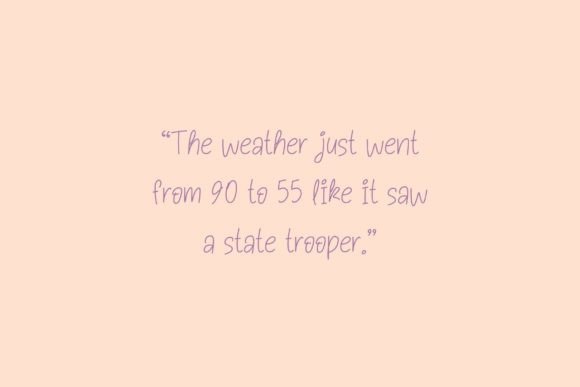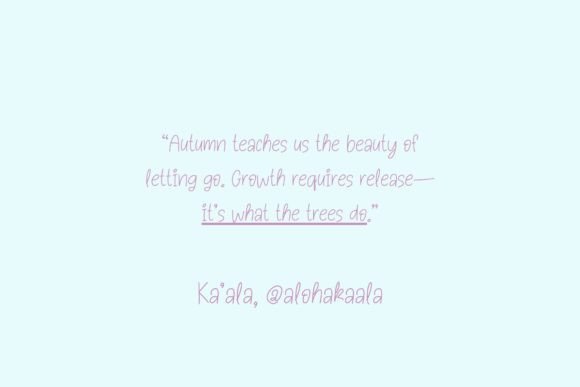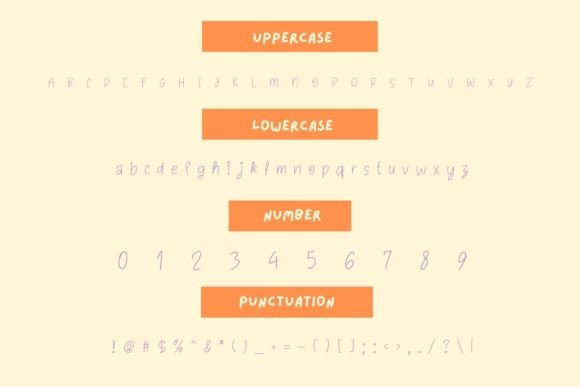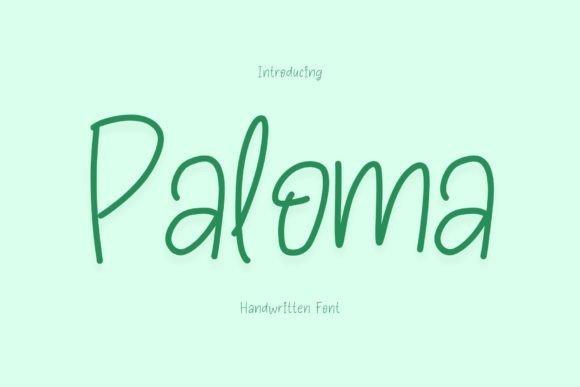
Introduction to Paloma Font
Paloma is a cute handwritten font.
It embodies playfulness and authenticity and is the perfect choice for all your favorite projects such as blog posts, logos, branding, ads, invitations, greeting cards, planners, photo albums, decorations, and much more Add it to any of your designs, and enjoy the results.
Key Features of Paloma Font
Why Choose Paloma Font?
Paloma Font offers exceptional quality and versatility, making it a valuable addition to your design toolkit. Whether you’re creating for personal projects or commercial use, Paloma Font delivers professional results.